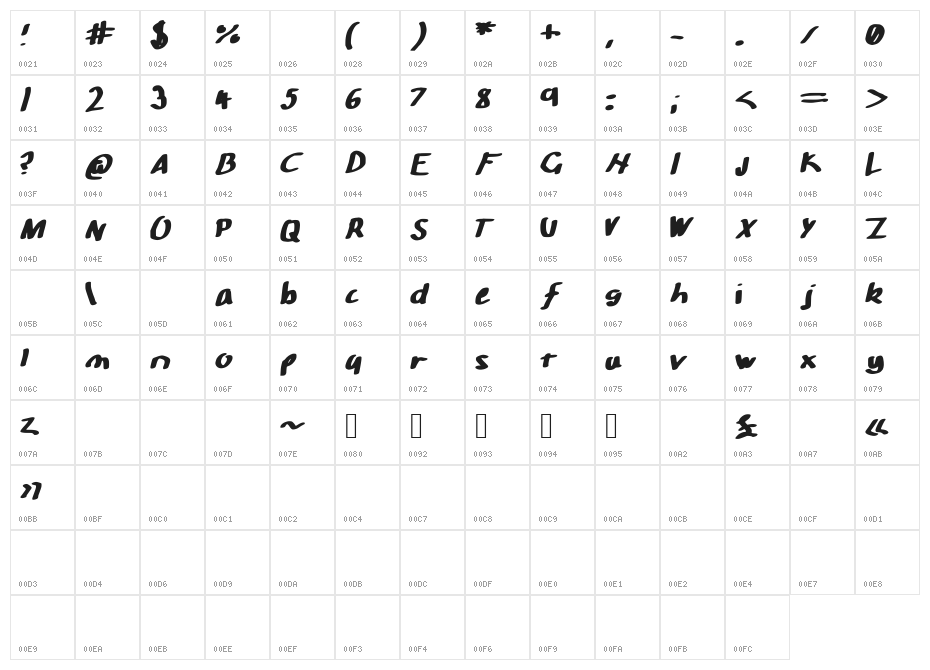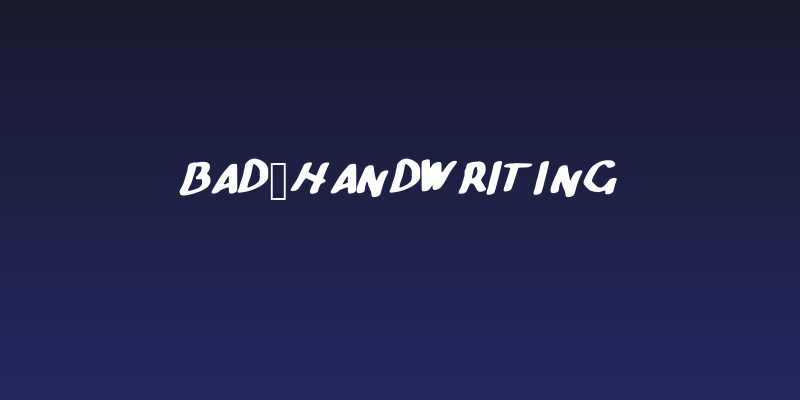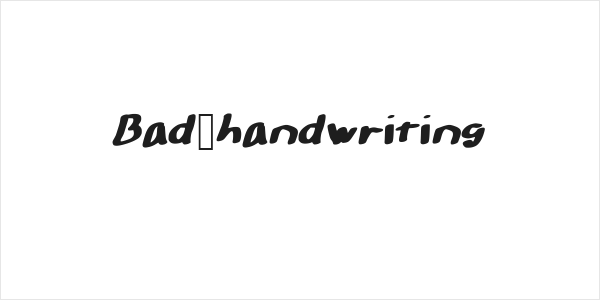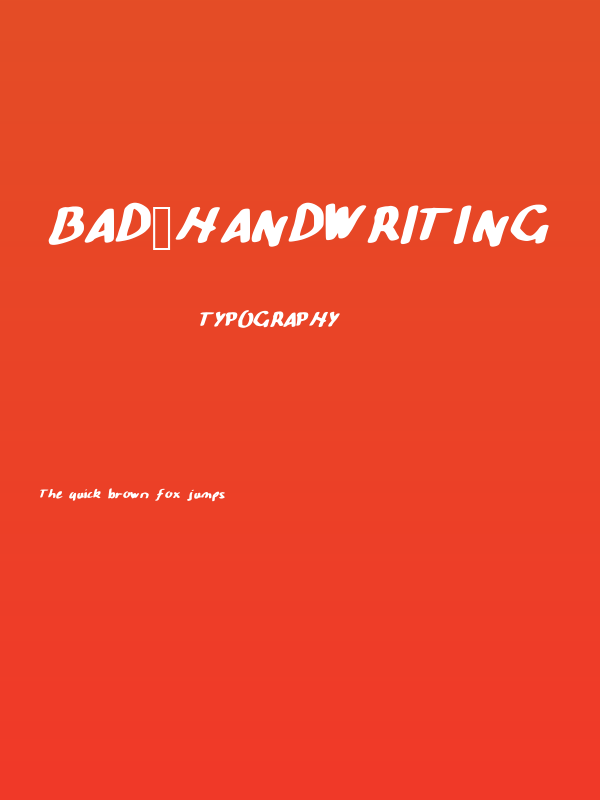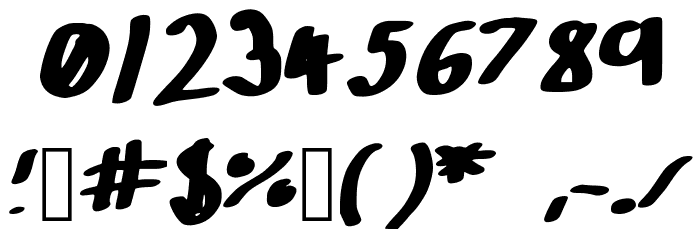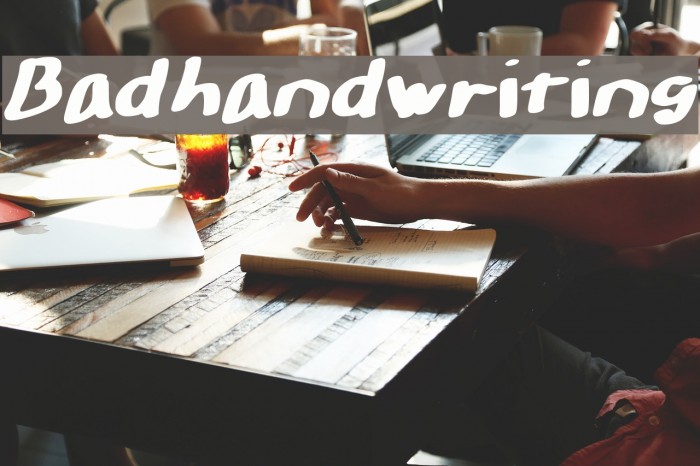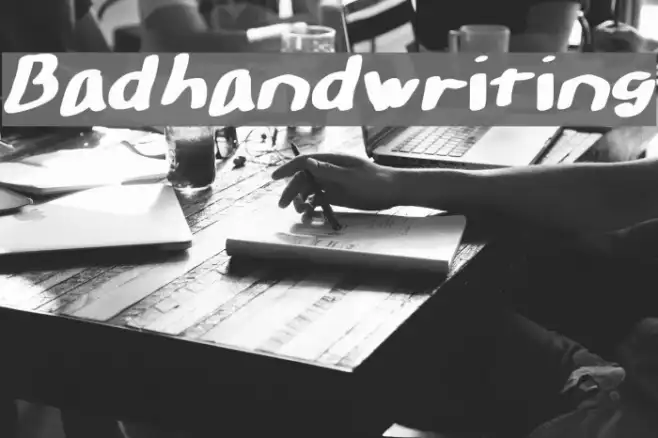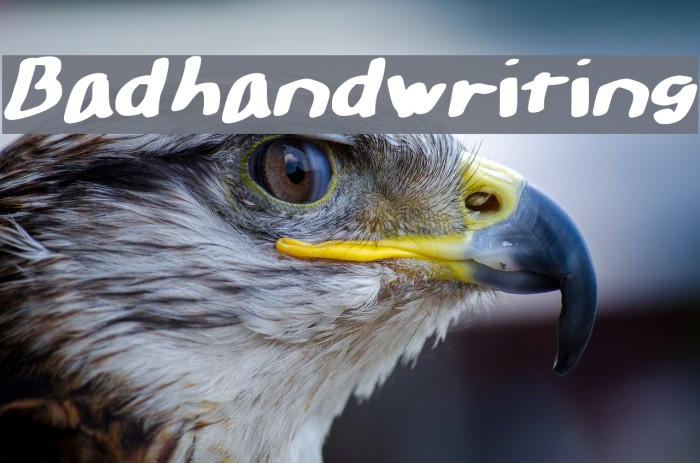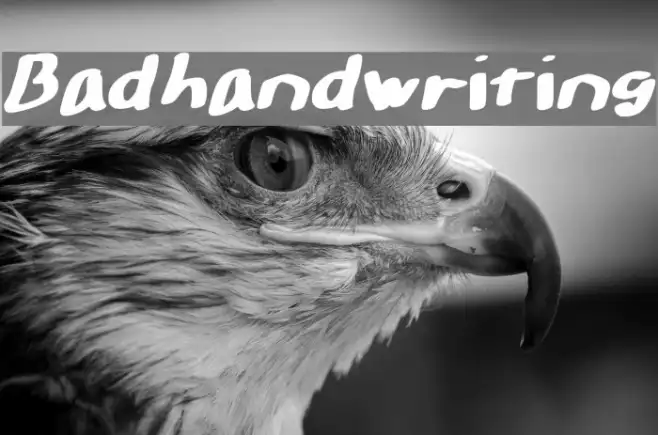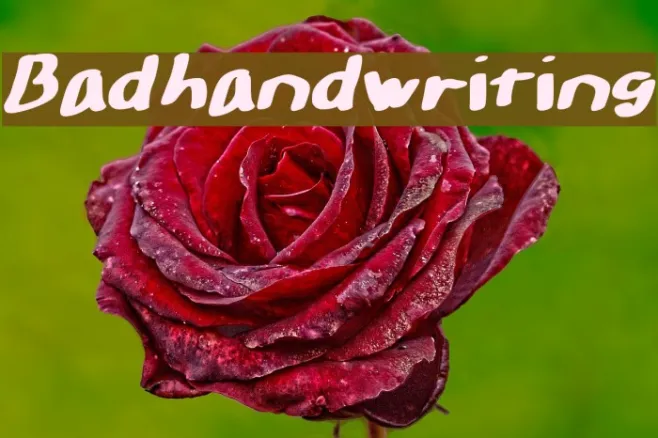
Bad_handwriting Font
Bad_handwriting Description
This font exudes a casual and playful vibe, reminiscent of handwritten notes with a bold and expressive touch. The letters are slightly slanted, giving it a dynamic and energetic feel. The strokes are thick and consistent, contributing to its bold appearance. The characters are well-spaced, ensuring readability while maintaining a lively and informal style. This font captures the essence of spontaneity and creativity, making it suitable for projects that require a personal and approachable tone. Its unique style stands out, making it ideal for eye-catching designs.